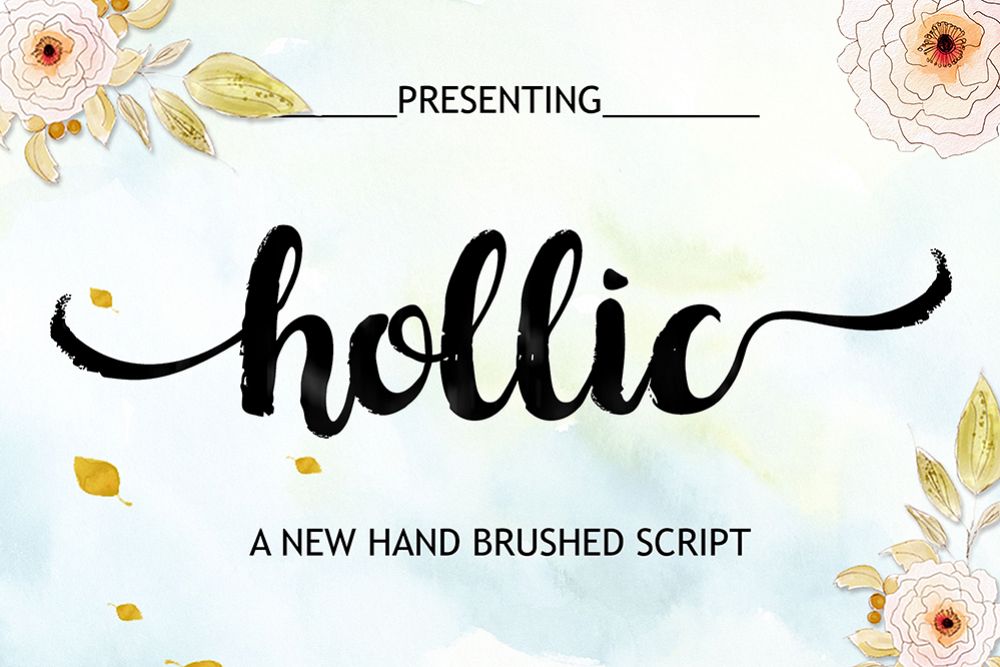
Hollic Brush
Hollic-Regular
Hollic Brush a new hand elegant brush script font. This font will look gorgeous on all your designs, branding materials, blog headers, business cards, quotes, invitations and more!! Hollic Brush come with 462 glyphs. The alternative characters were divided into several Open Type features such as Swash, Stylistic Sets, Stylistic Alternates, Contextual Alternates, and Ligature. The Open Type features can be accessed by using Open Type savvy programs such as Adobe Illustrator, Adobe InDesign, Adobe Photoshop Corel Draw X version, And Microsoft Word. And this Font has given PUA unicode (specially coded fonts).